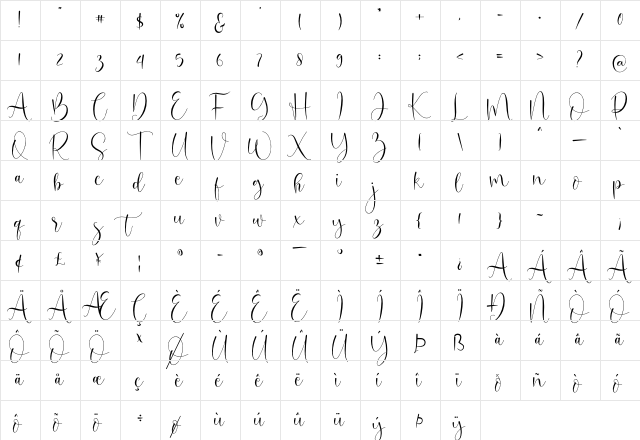
oh beloved Regular
| Designer | Nissa Nana |
Design Context for oh beloved Typeface
oh beloved is a composed and adaptable typeface that performs quietly and consistently across a wide range of design contexts.